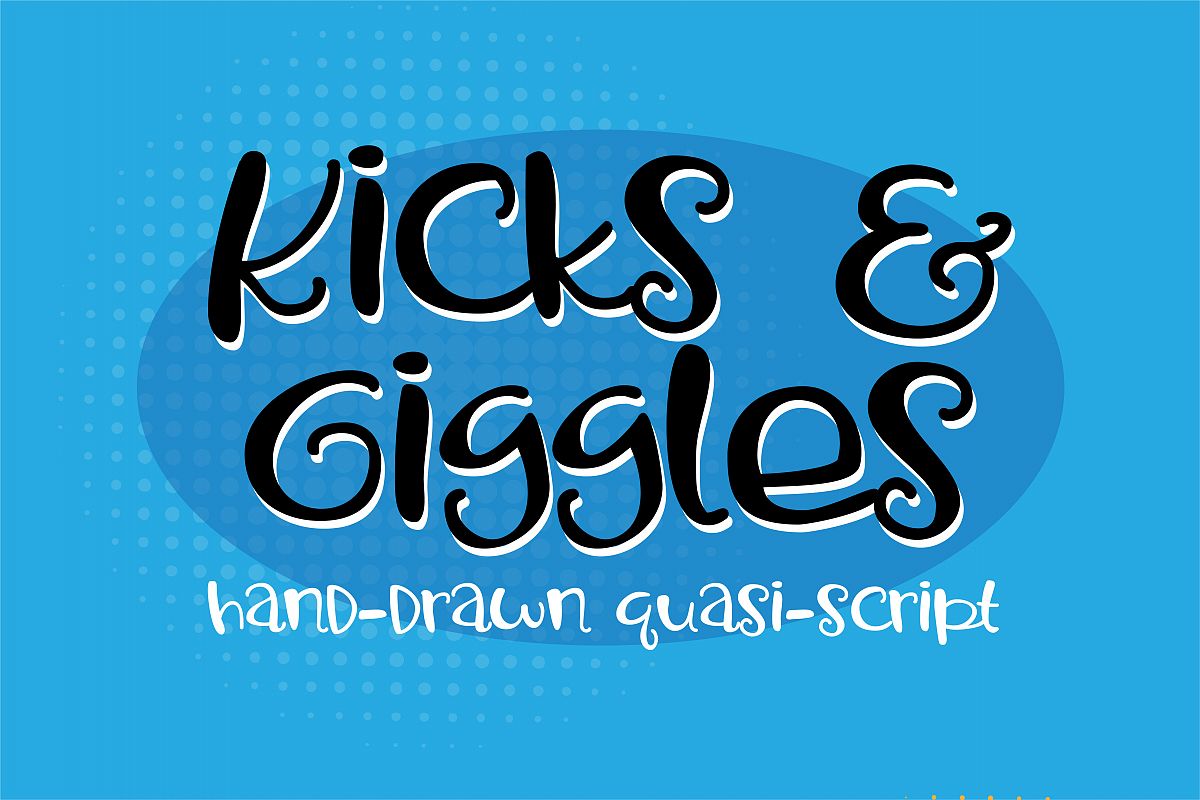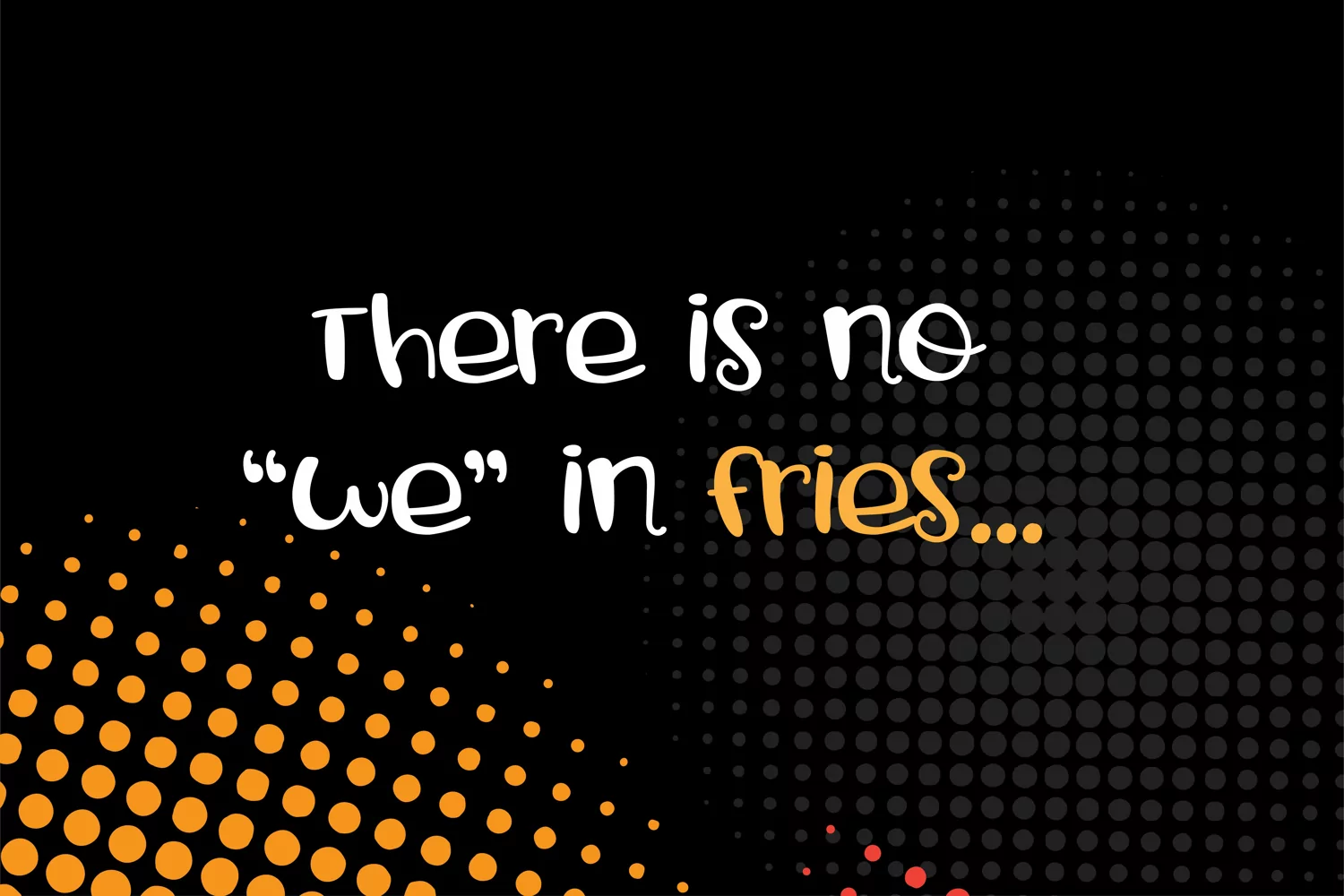
ZP Kicks and Giggles
Kick and Giggles is a hand-created quasi-script (part script, part print) that adds a little fun to any project you use it in.
Numbers
Symbols
Multilingual support (standard)